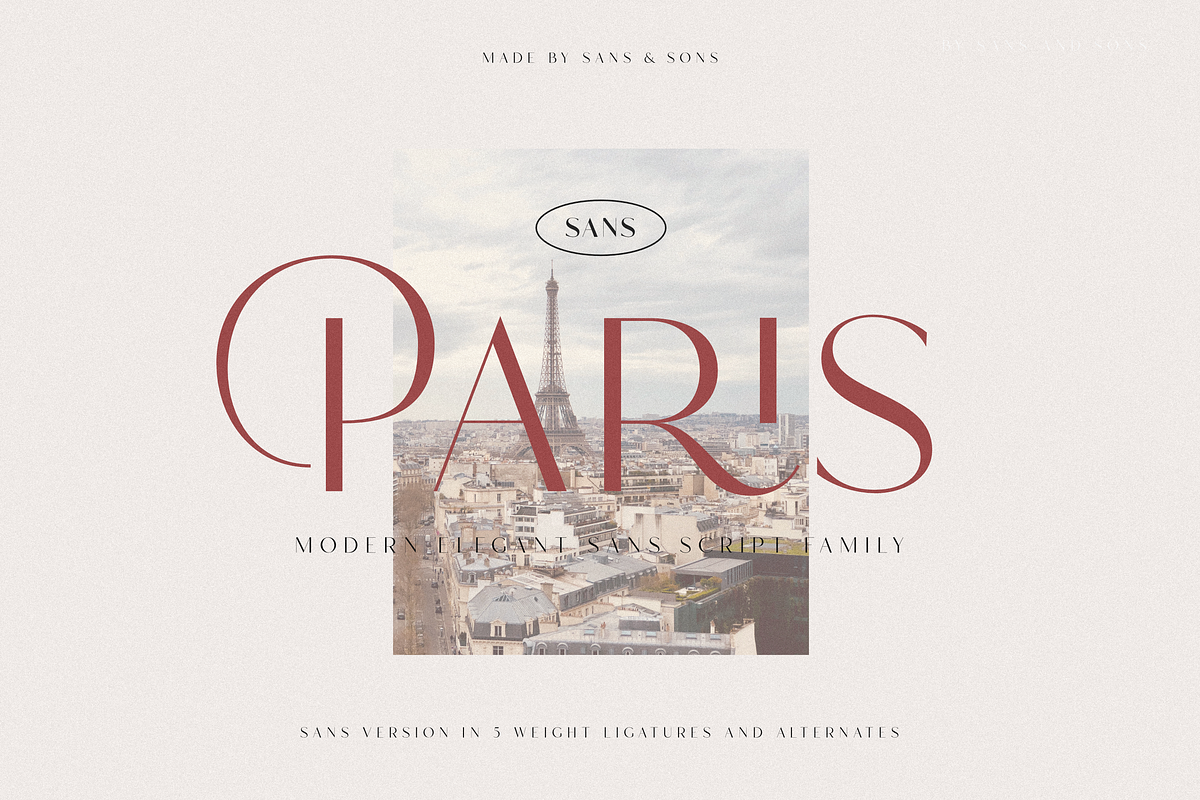
Hello Paris – Modern Sans Font Free Download is a chic and minimalist typeface that exudes elegance with a fashionable edge. Please note: you must purchase this font for commercial use, but you can test it through a free download. With clean lines, stylish curves, and a contemporary feel, Hello Paris is perfect for branding, fashion lookbooks, social media graphics, editorial design, and luxury packaging.
Inspired by the timeless sophistication of Parisian design, this sans serif font blends simplicity with high-end appeal. Whether you're building a modern logo or designing sleek website headers, Hello Paris – Modern Sans Font Free Download offers versatility, refinement, and effortless beauty. It’s fully compatible with Adobe Illustrator, Photoshop, Canva, and other major platforms. Download it today for personal use and bring a touch of Parisian elegance to your next creative project.